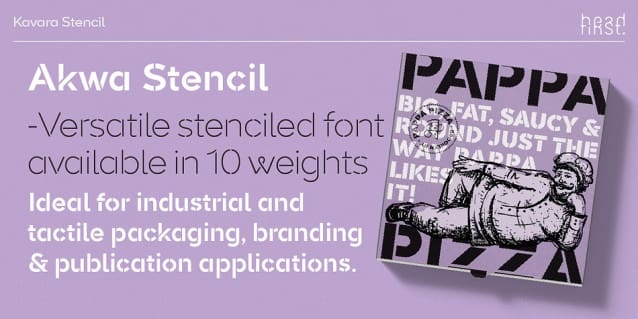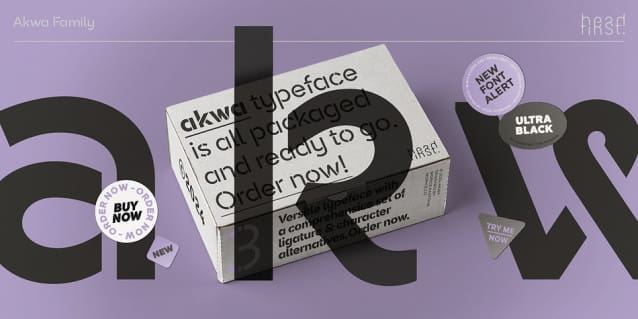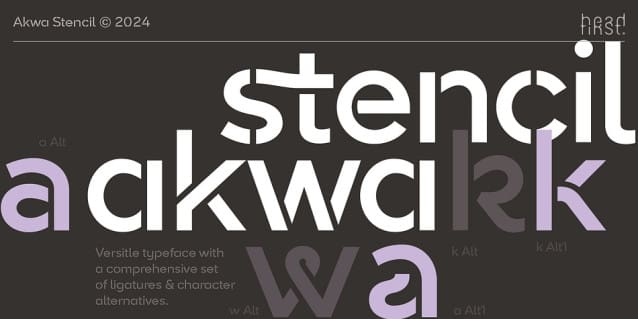
Akwa Stencil Font
Akwa Stencil Font, a remarkable san-serif typeface that effortlessly blends elegance with versatility. Drawing inspiration from timeless geometric shapes with low-contrast liner forms, Akwa exudes a sense of modern sophistication. Akwa will elevate your designs with its refined functionality, beauty and adaptability.